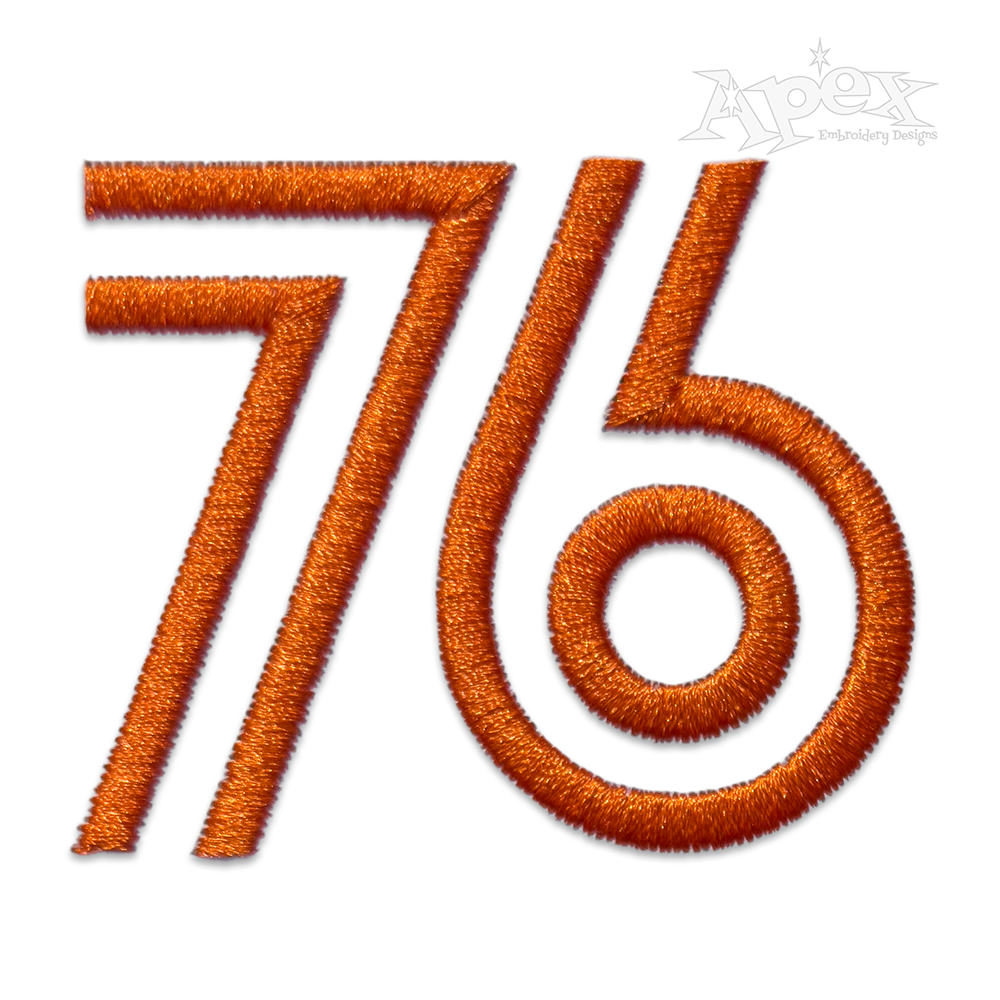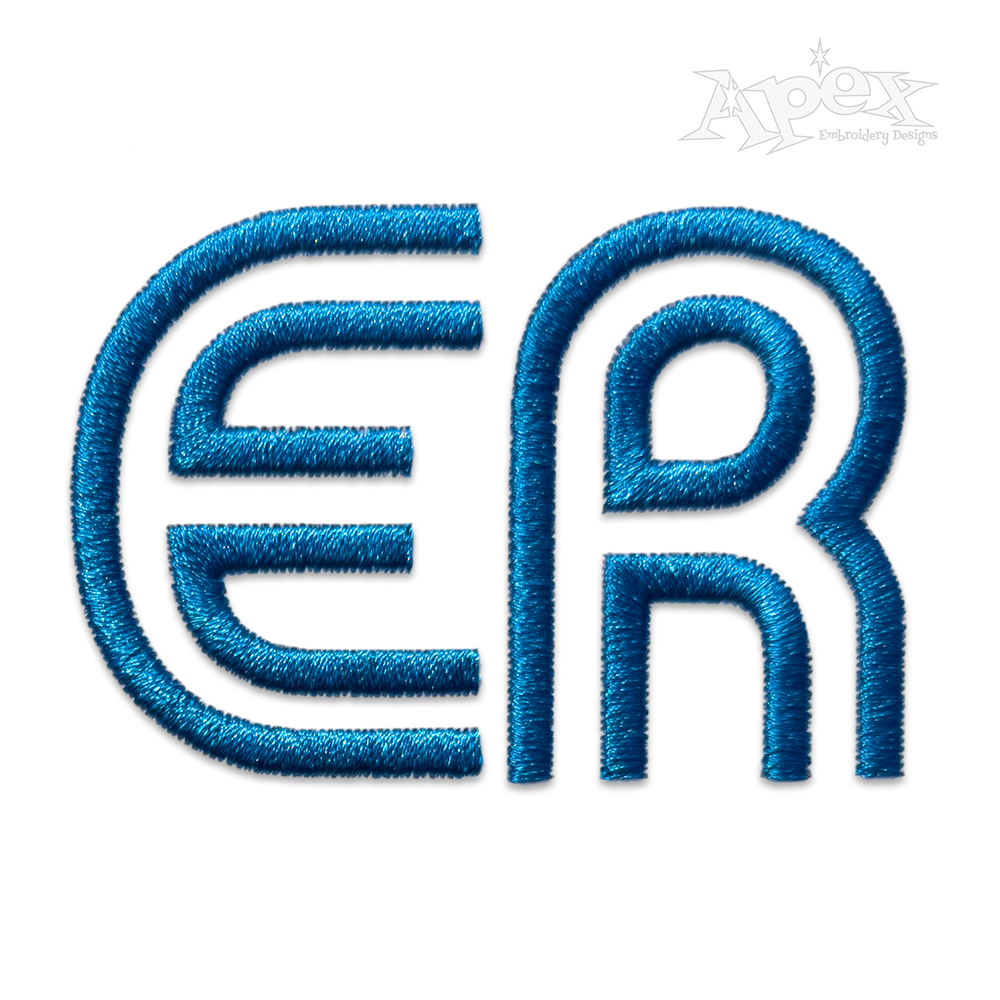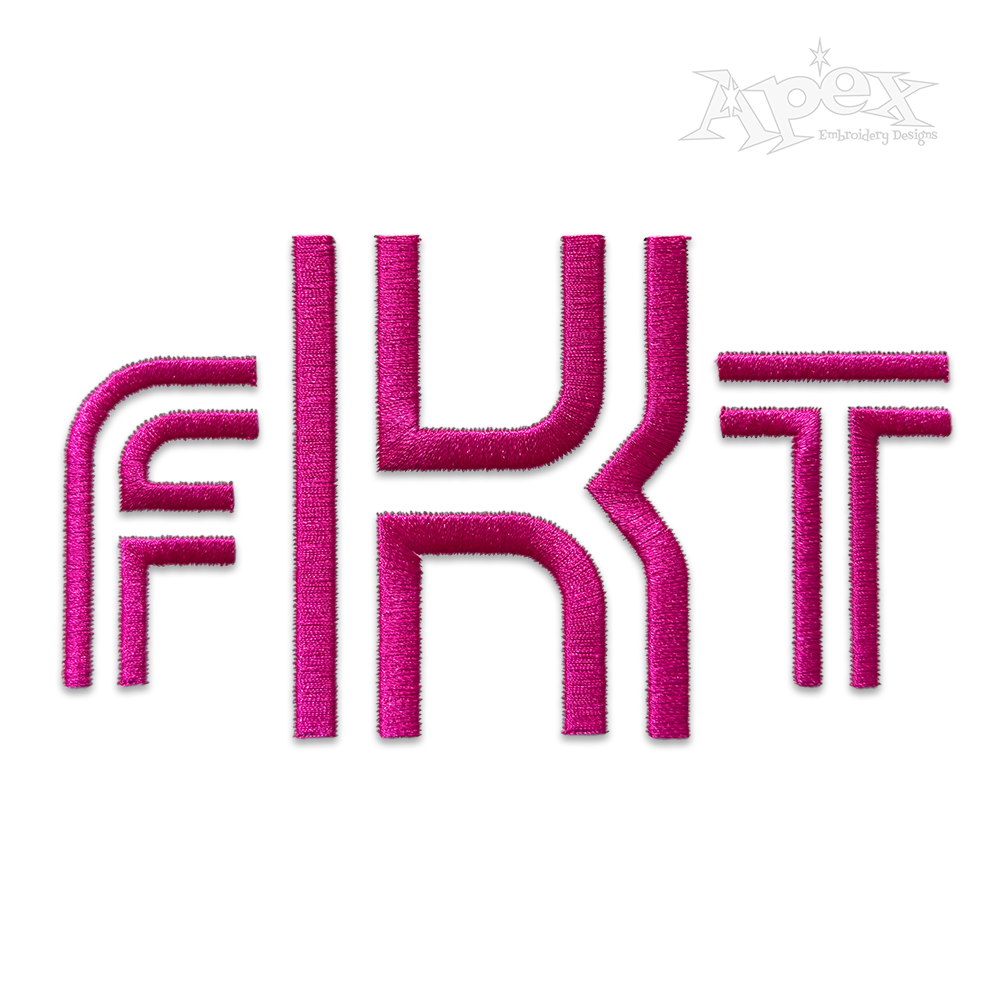
Double Satin Embroidery Font
There is an exquisite quiet drama in the way ambient light cascades across parallel columns of lustrous embroidery thread. Inspired by the architectural cadence of bespoke typography and vintage engraved crests, the Double Satin Embroidery Font was designed to bring dimensional luxury and tactile structure to fine textiles. Rather than relying on simple single-pass fills, this alphabet features balanced twin-rail satin strokes that run in graceful harmony. The resulting letterforms carry a sculptured, embossed presence that instantly elevates custom monogramming, transforming everyday fabric into a treasured heirloom.
Project Ideas for Double Satin Embroidery Font
The structured elegance of the double-column motif makes this typography extraordinarily versatile across both classic and modern textile palettes:
- Linen Cocktail Napkins & Table Runners: Create an unforgettable tablescape by stitching crisp tonal monograms into raw Belgian linen or hemstitched dinner napkins for dinner parties and holiday celebrations.
- Heirloom Bedding & Pillow Shams: Frame initials in the center of 400-thread-count sateen duvet covers or bolster pillows for an understated five-star hotel aesthetic.
- Bridal Robes & Wedding Keepsakes: Stitch matching newlywed monograms or bridal party initials onto lustrous silk, modal, or waffle-weave robes for memorable wedding-morning portraits.
- Bespoke Resort Wear: Accentuate breezy linen cabana shirts, light cotton tunics, and structured sun hats for effortless vacation personalization.
- Heavyweight Canvas Totes & Weekenders: The dual-column satin density holds its own exceptionally well against heavy duck canvas, creating bold, long-lasting travel gear.
To showcase the distinctive light-catching nature of the double satin columns, consider these deliberate placements:
- Corner Diagonal: Angle single initials 1.5 to 2 inches from the hem of napkins or table linens to align with the fabric weave and create an effortless, organic drape.
- Center Chest: Position a single initial or three-letter monogram centered 7 to 9 inches down from the shoulder seam on sweatshirts, bathrobes, or resort tunics.
- Cuff & Hem Insets: Utilize the 2-inch size placed subtly on the outer wrist cuff of French-cuff dress shirts or pajamas for an air of quiet luxury.
- Pillow & Sham Medallions: Place the 4-inch letters dead-center on standard or euro shams, allowing generous negative space around the letters so the dimensional satin bands stand out dramatically.
Double Satin Embroidery Font Craft & Letterform Details
True luxury embroidery relies on how the needle interacts with the tension of the thread, and the Double Satin Embroidery Font was engineered with uncompromising attention to thread behavior. Digitizing dual parallel satin columns requires microscopic precision: if the satin angles deviate even slightly, the light reflects unevenly and the letter loses its visual integrity. Each curve, crossbar, and terminal has been manually mapped to ensure harmonious stitch angles that channel light in uniform bands.
Every stroke incorporates graduated pull compensation and built-in underlay scaffolding to prevent thread sinkage on lofty fabrics while keeping the negative space between the double columns razor-sharp. Travel stitches are concealed invisibly within the underlay tracks, ensuring impeccably clean transitions with zero unnecessary jump trims across open gaps. The result is a smooth, rhythmic stitch-out that glides through your machine, producing firm, touchable ridges and unmistakable craftsmanship with every stitch.